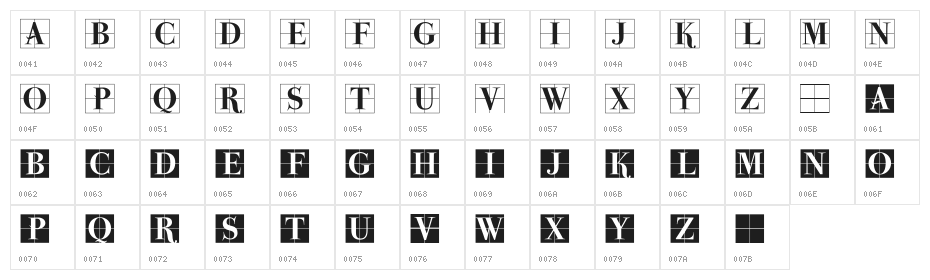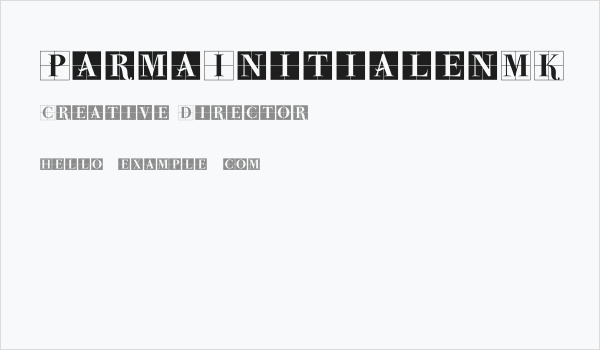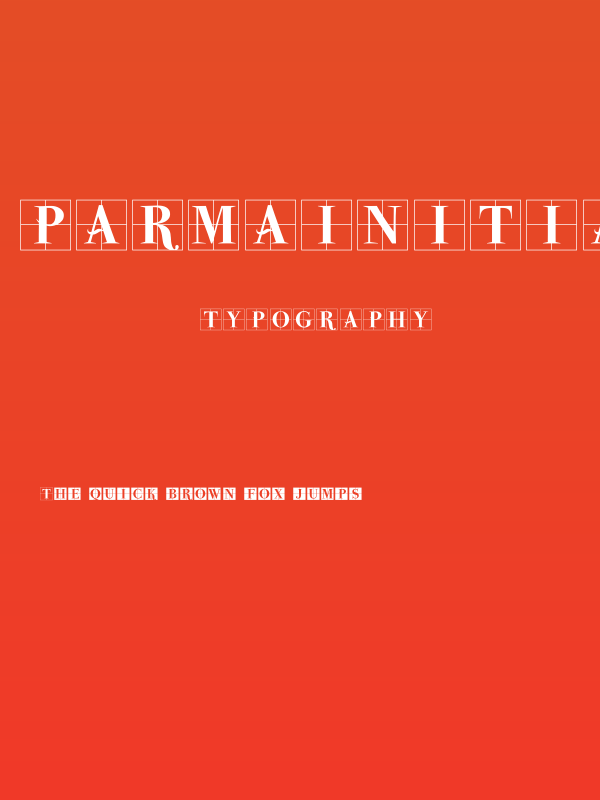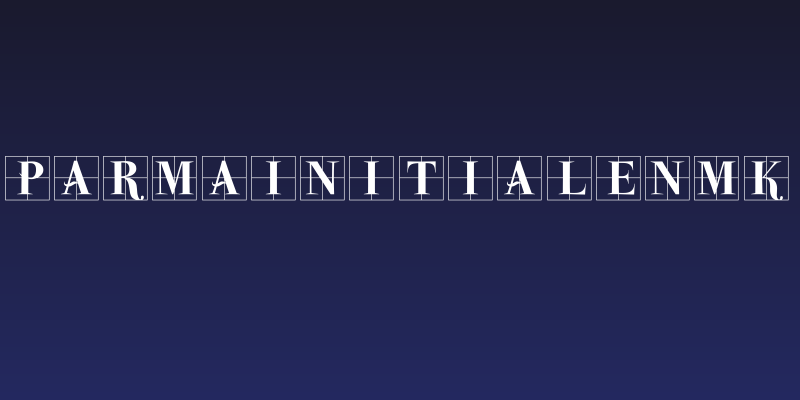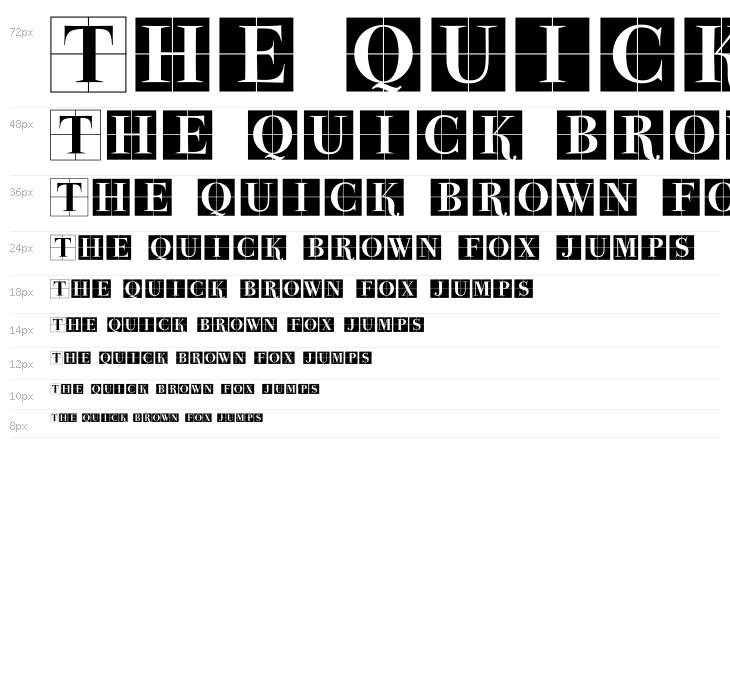
ParmaInitialenMK Font
ParmaInitialenMK Description
This font features an ornate and decorative style, characterized by its intricate and artistic design. Each letter is enclosed within a square, with a high contrast between the thick and thin strokes. The uppercase letters are bold and prominent, making them ideal for decorative purposes. The font's unique style is reminiscent of historical or classical themes, with a touch of elegance and sophistication. The use of both positive and negative space within the squares adds a layer of complexity and visual interest, making it suitable for projects that require a distinctive and eye-catching typeface.
| Proposed Projects | Ideal for invitations, certificates, logos, and decorative headings. |